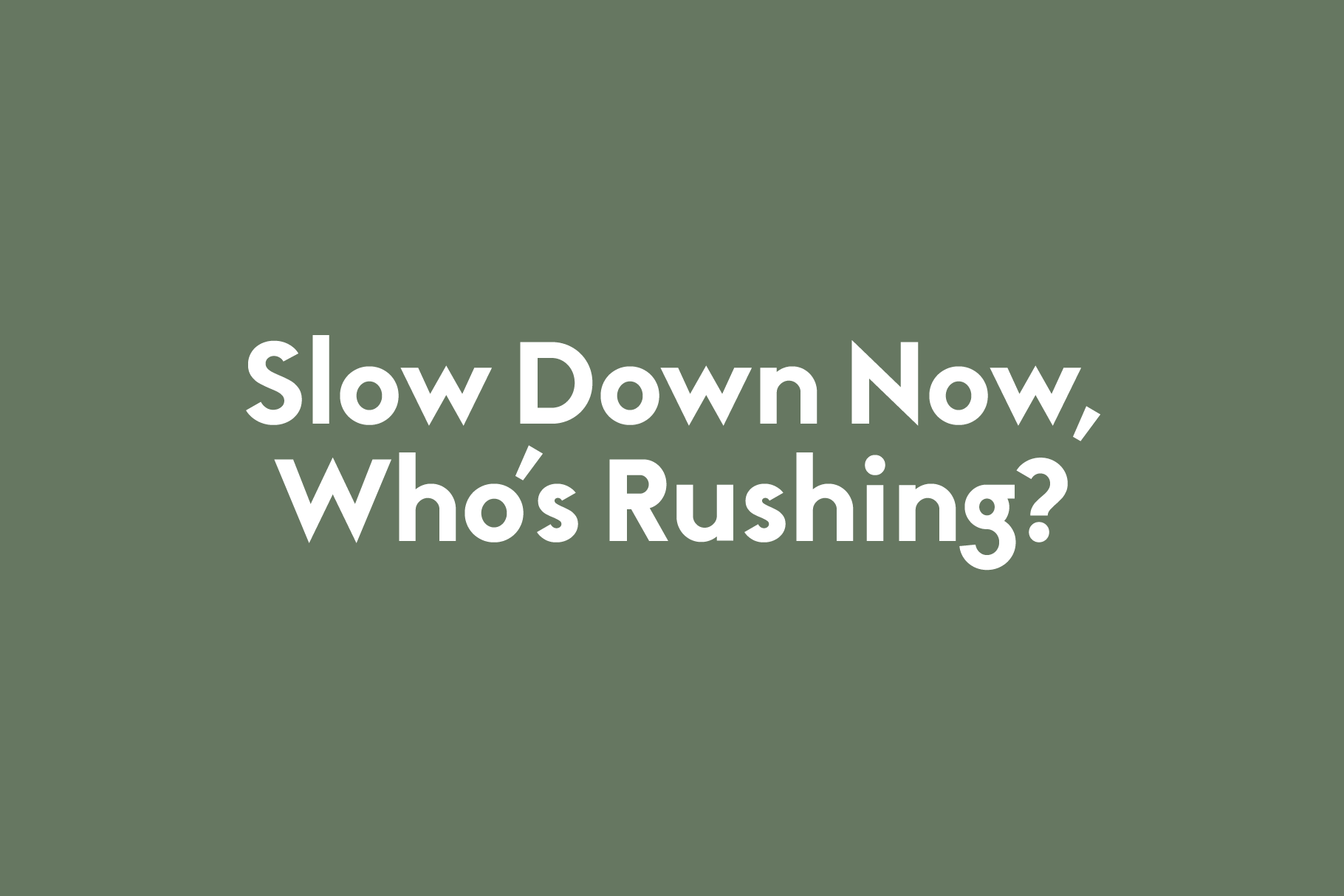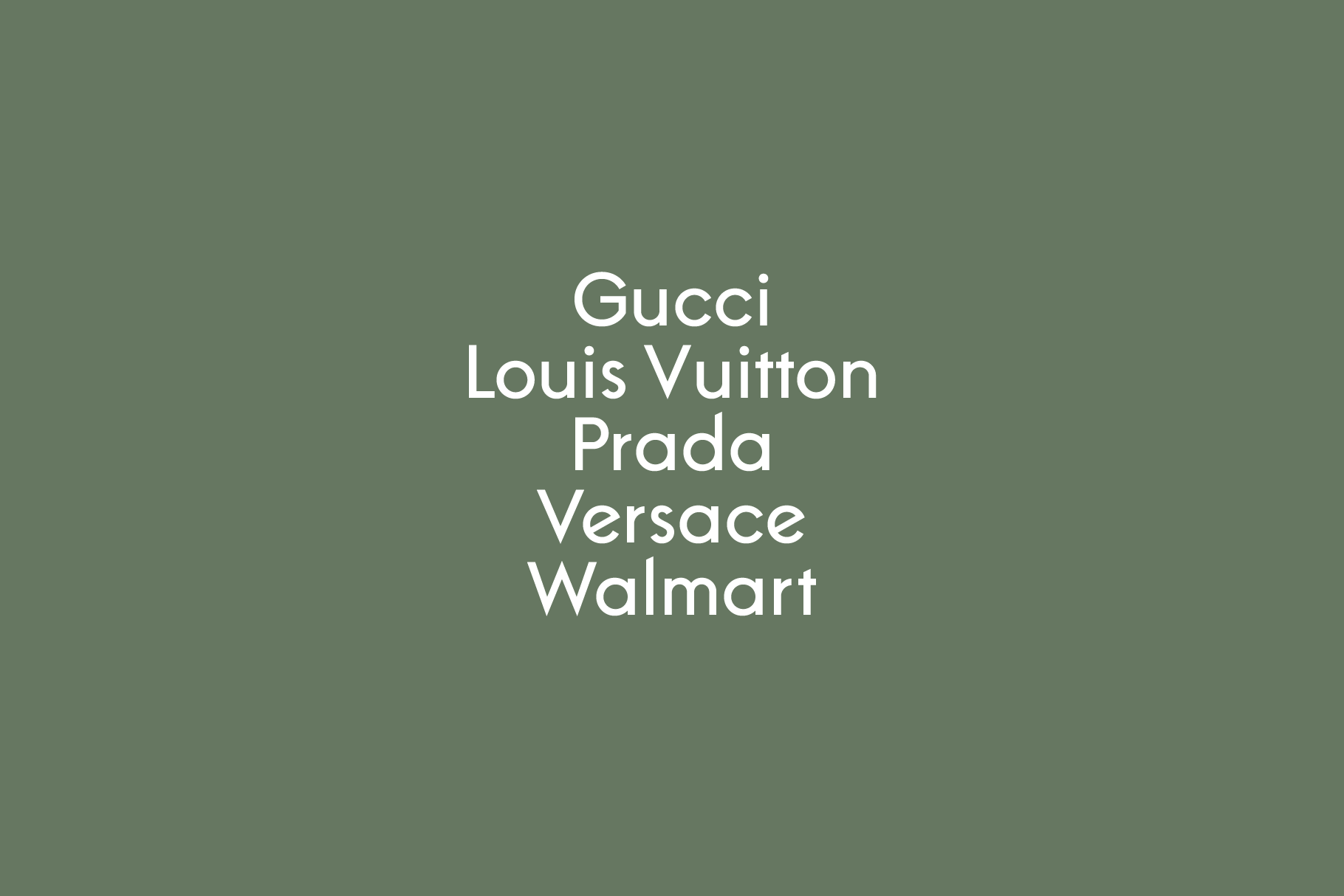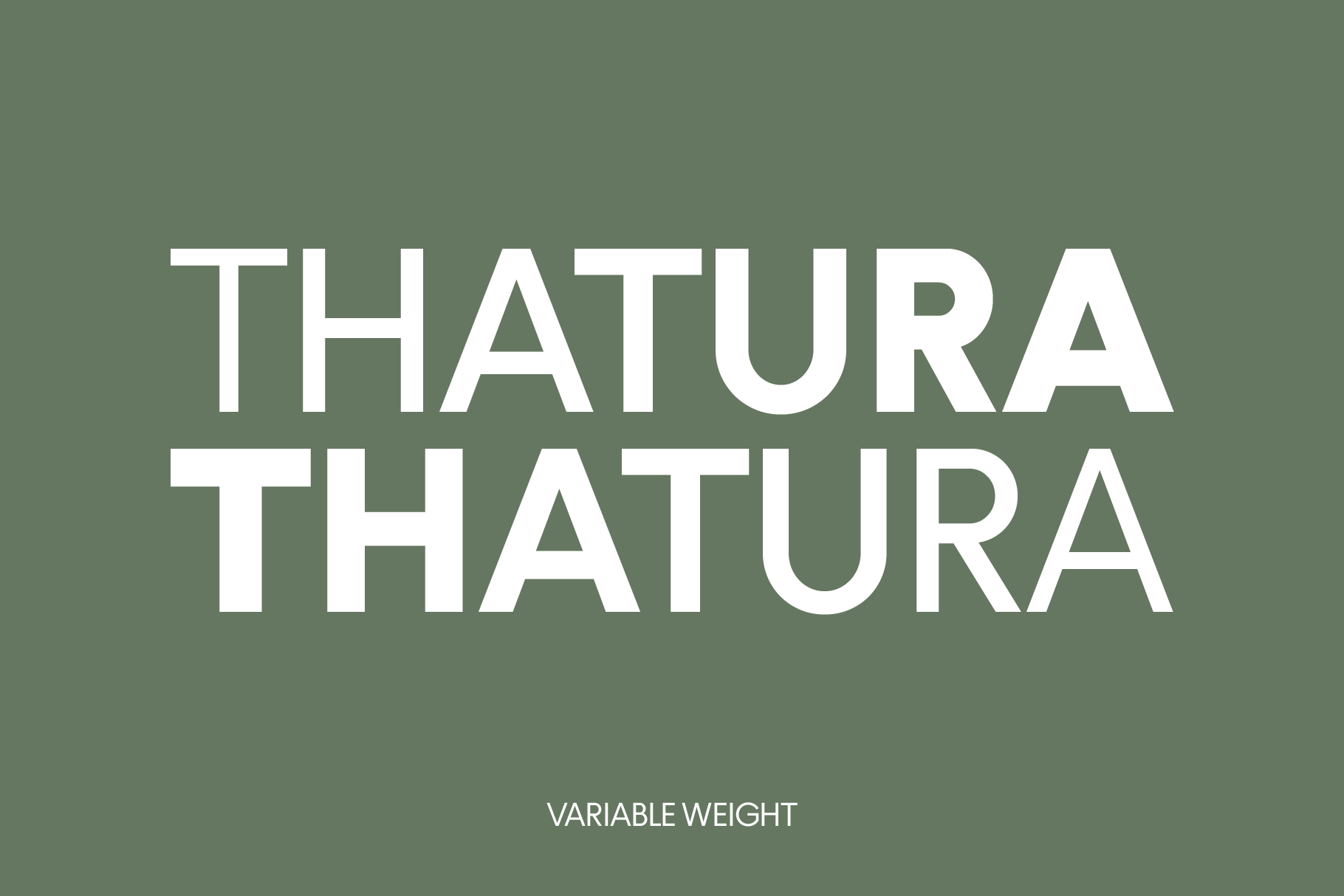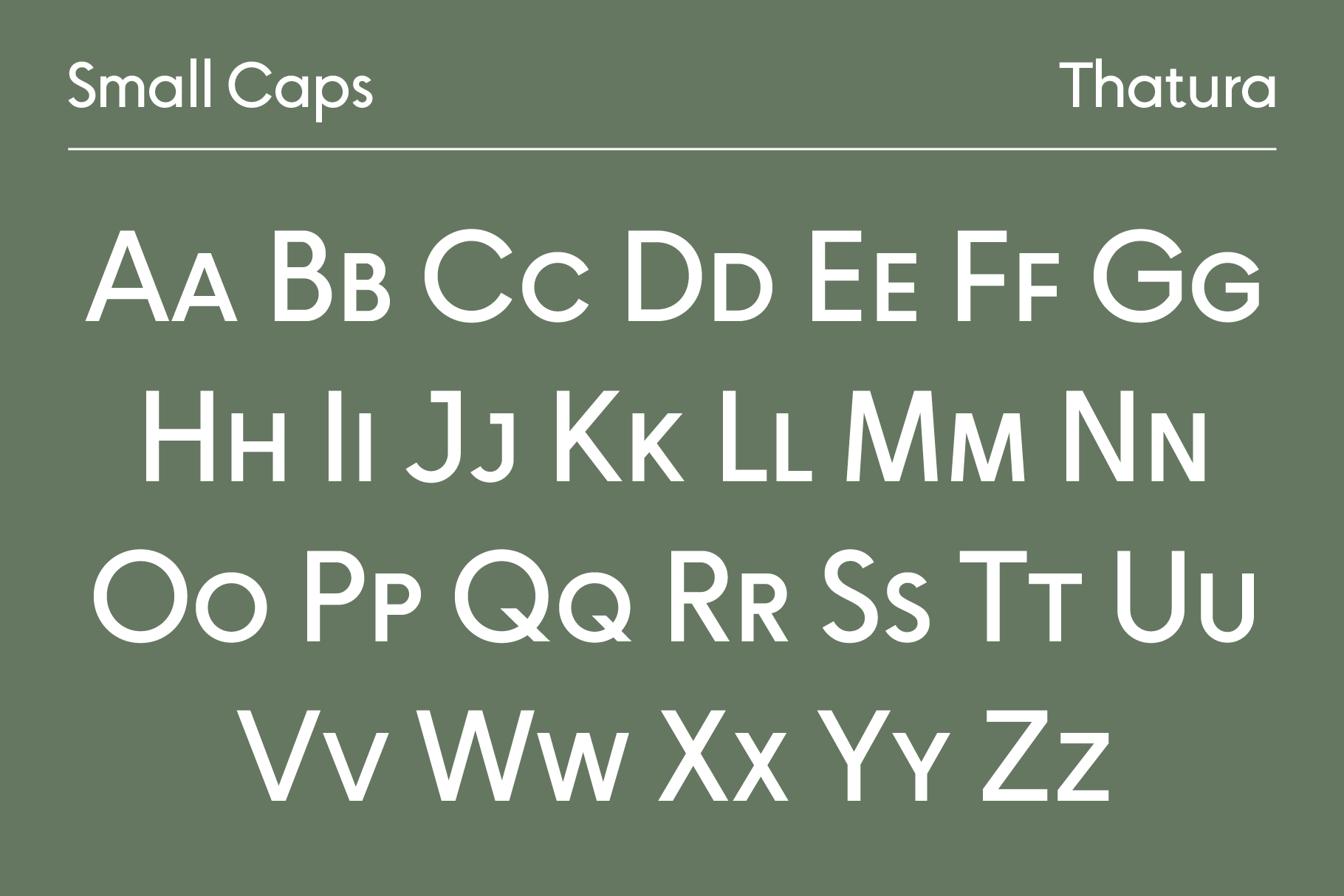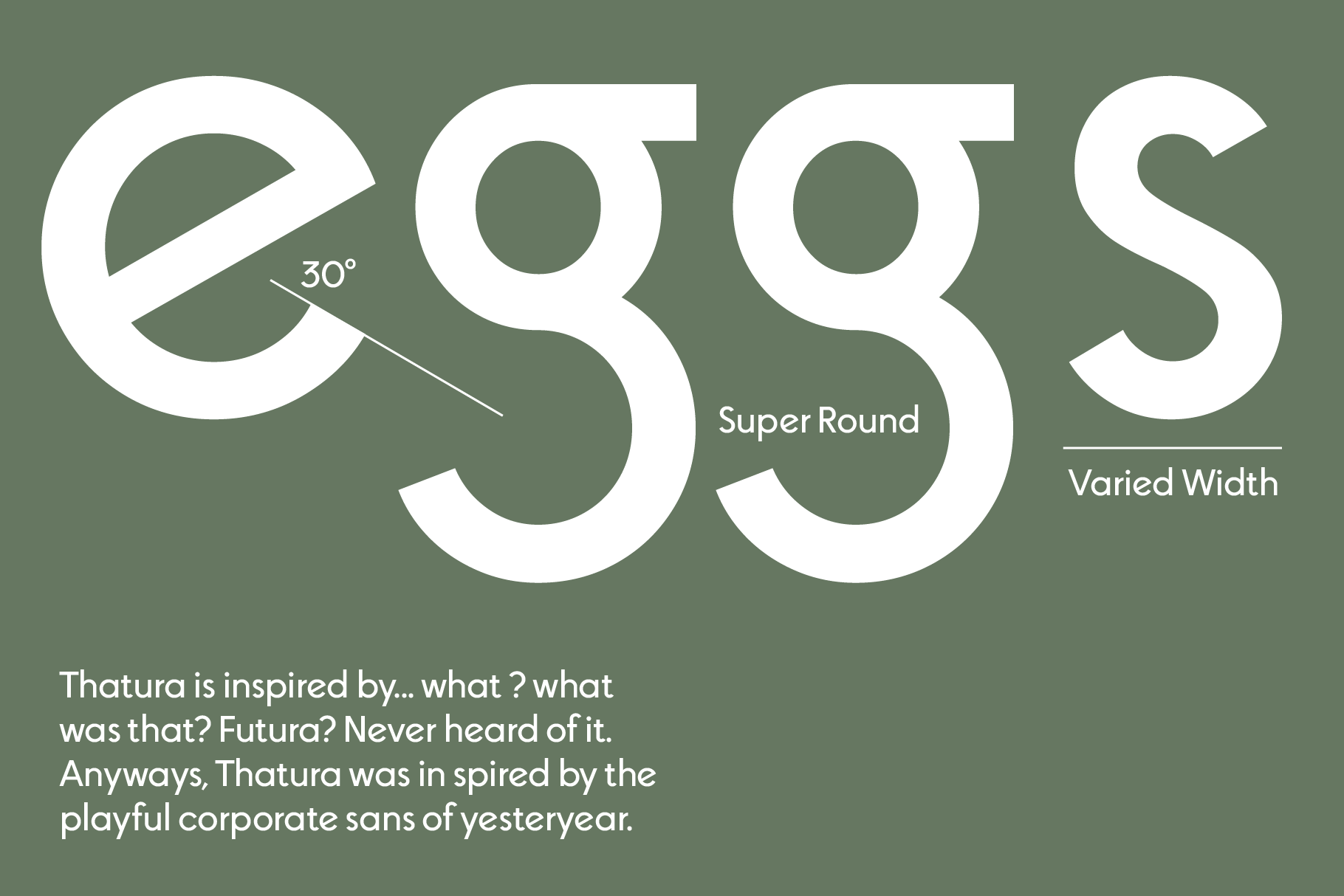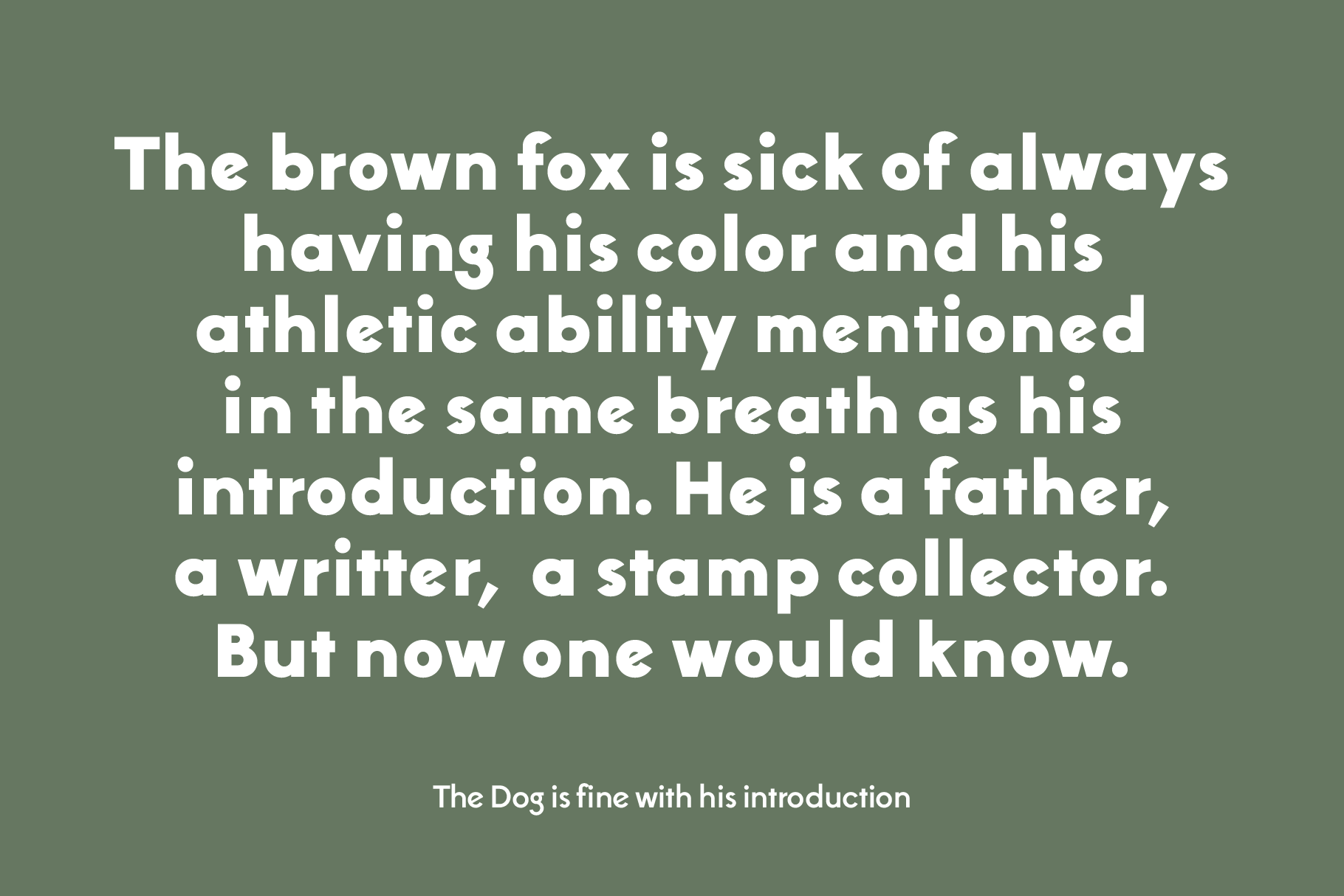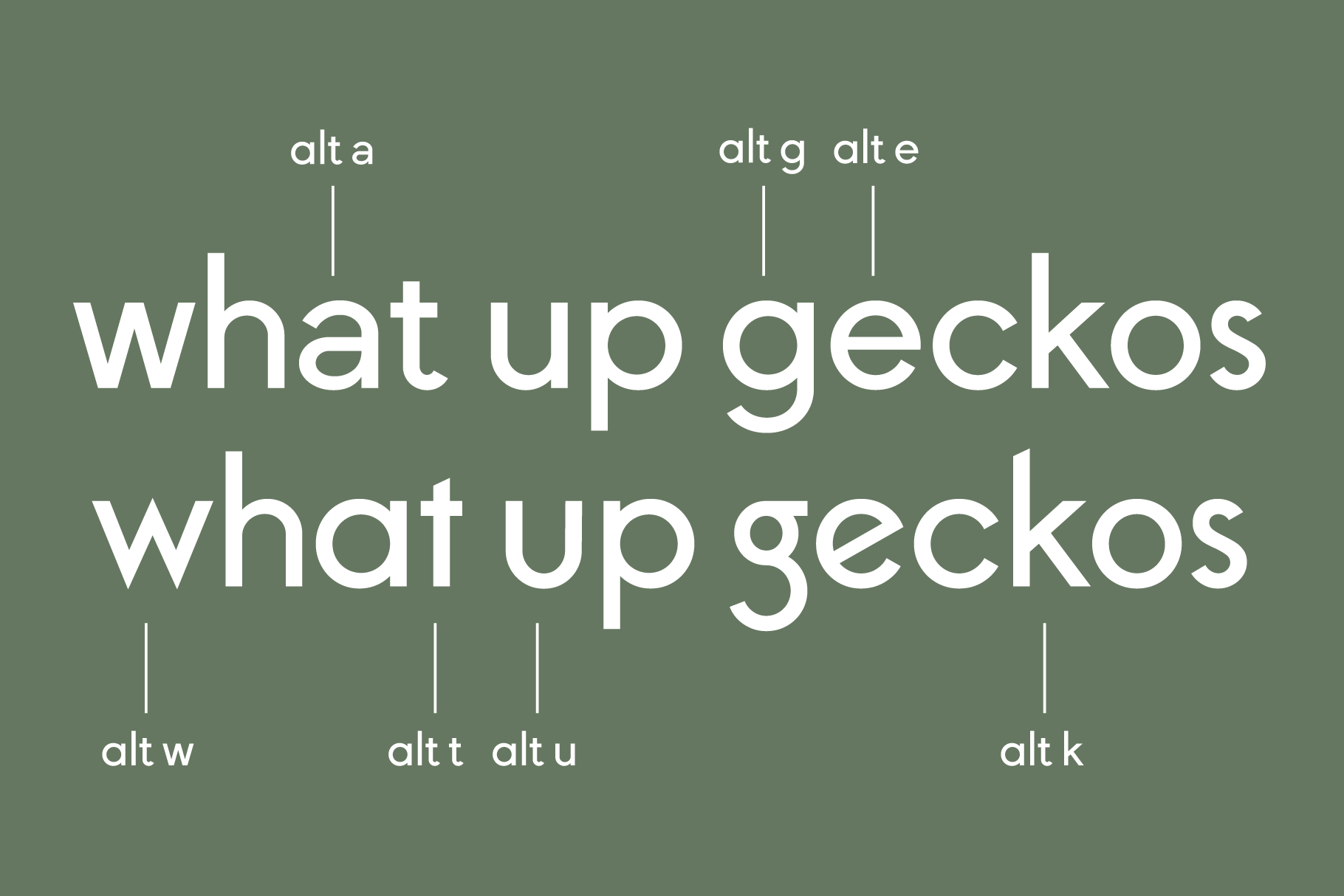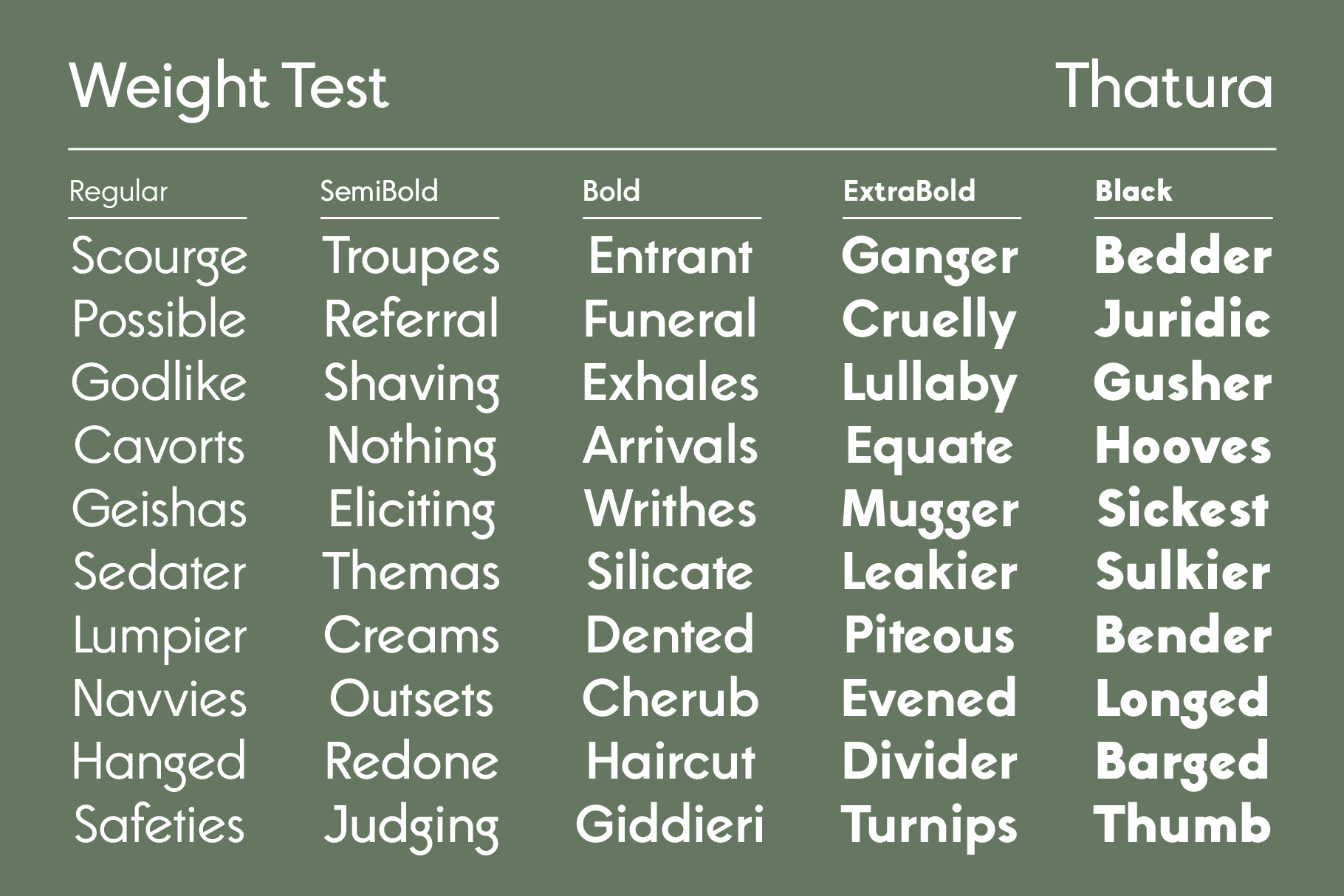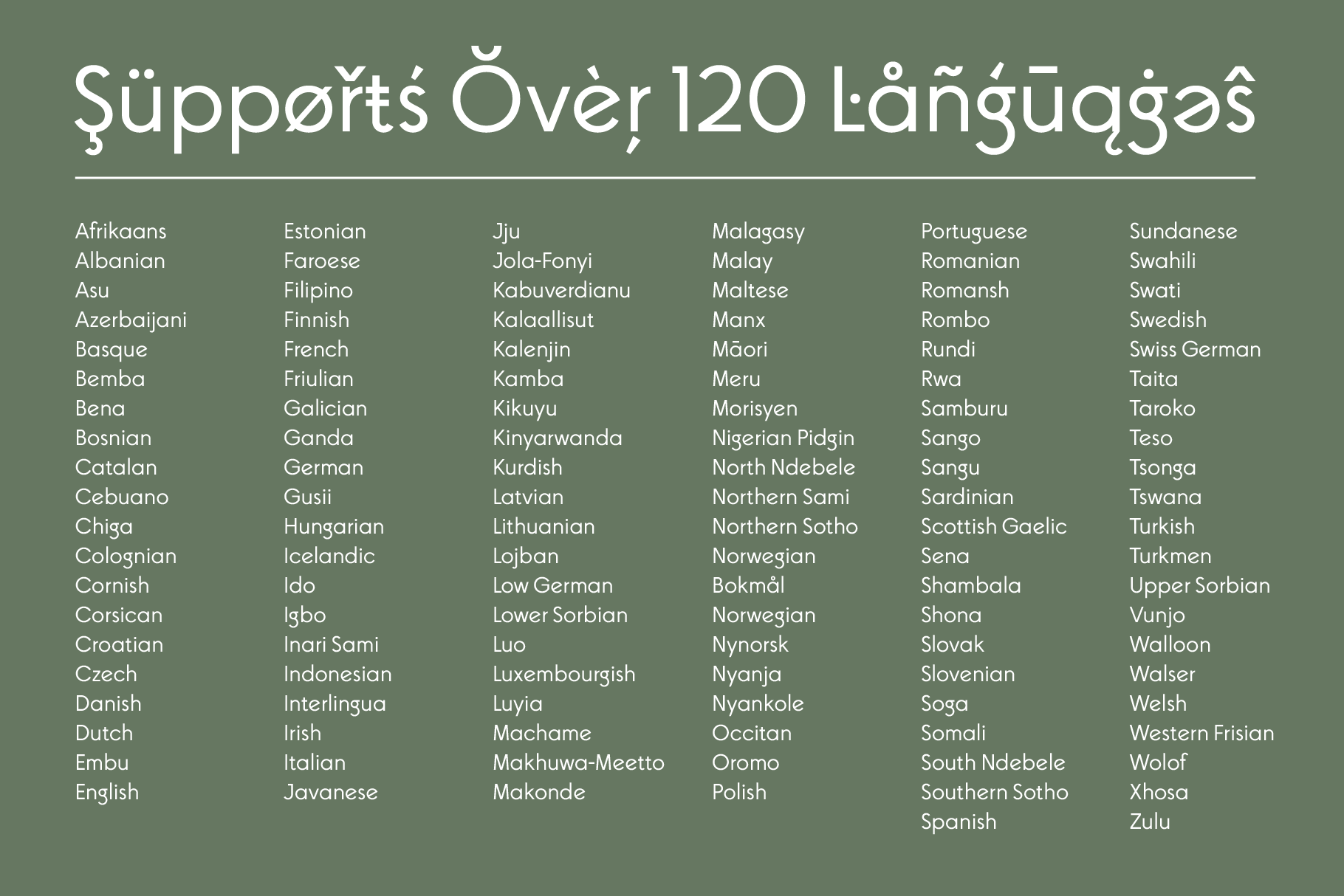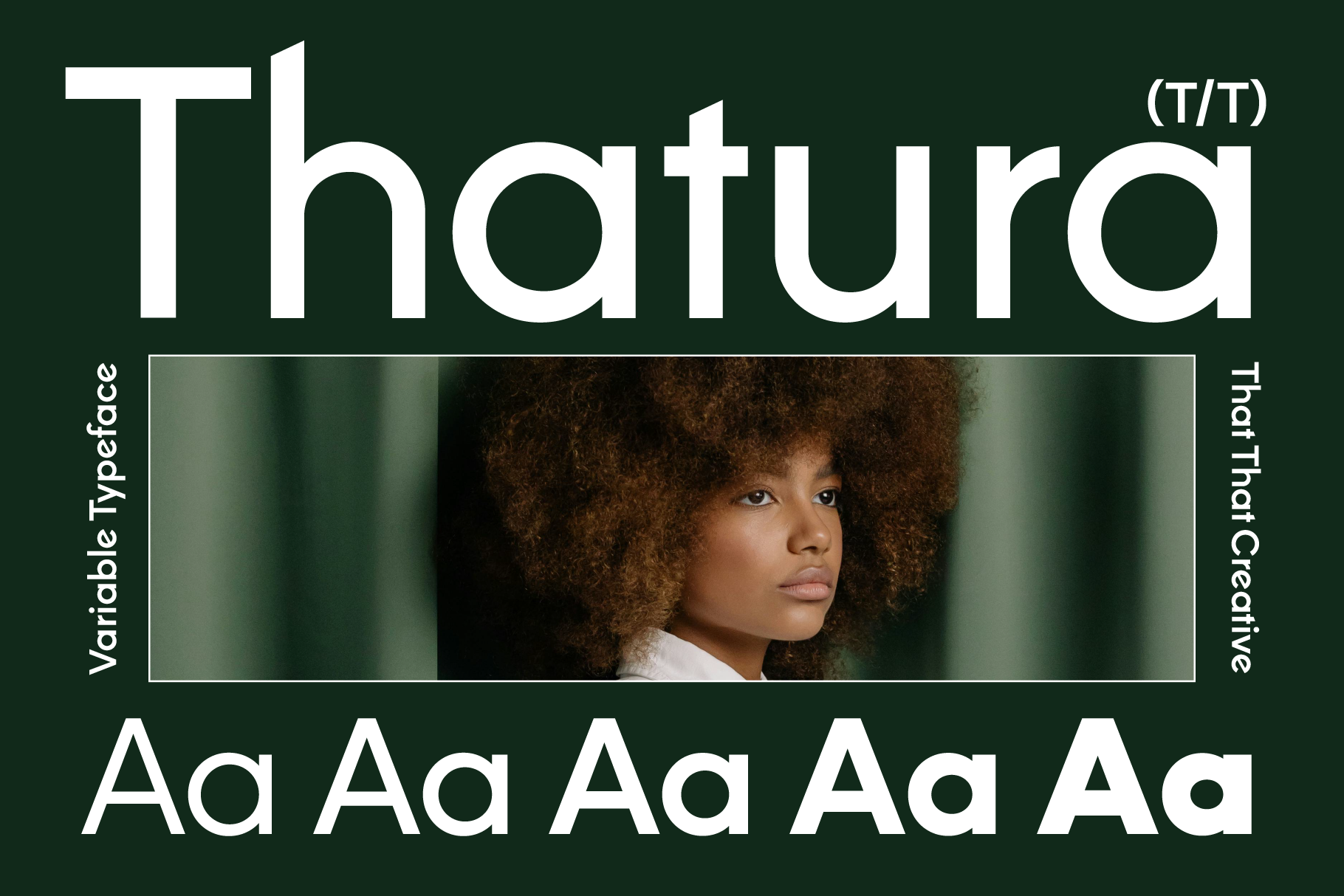
Thatura Variable Family Collection
Thatura
Regular SemiBold Bold ExtraBold BlackThatura variable
Regular SemiBold Bold ExtraBold BlackThatura is a geometric sans family that is inspired by some font I saw once but can’t remember its name… but That’s not important. Thatura is kinda like that font but with a little more quirk to it and a load more customization options. From sharp corners and ascenders to off axis “e”s and super playful ”g”s. You can pump up the fun factor or dial it back to a more tame feel depending on what you need.